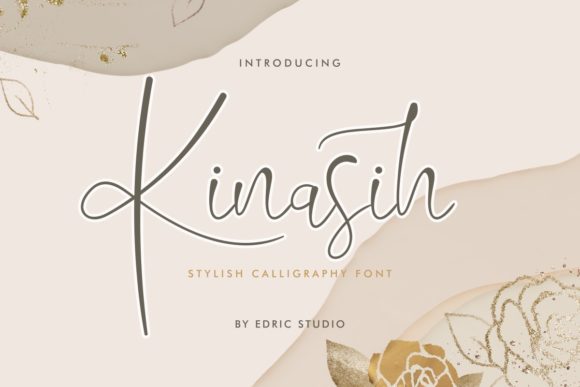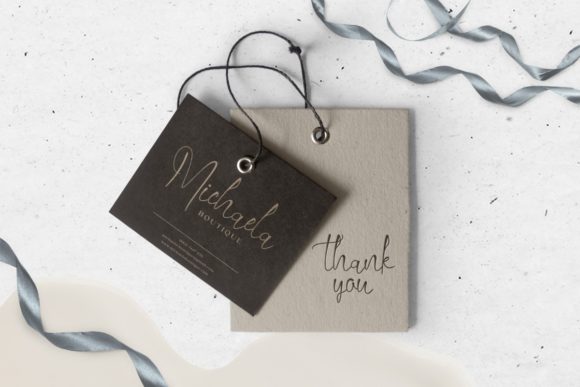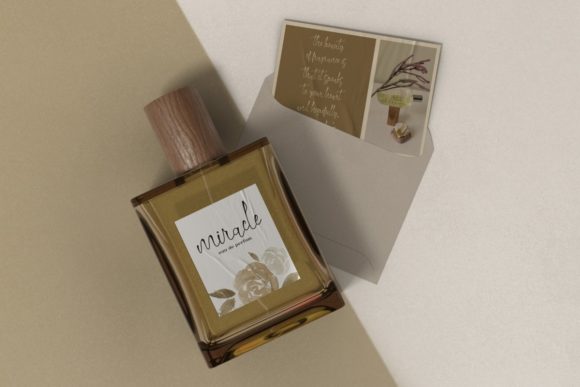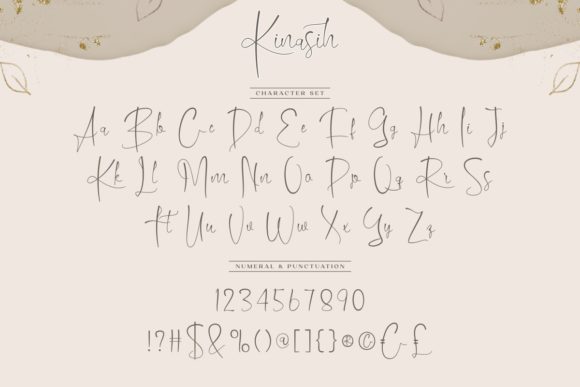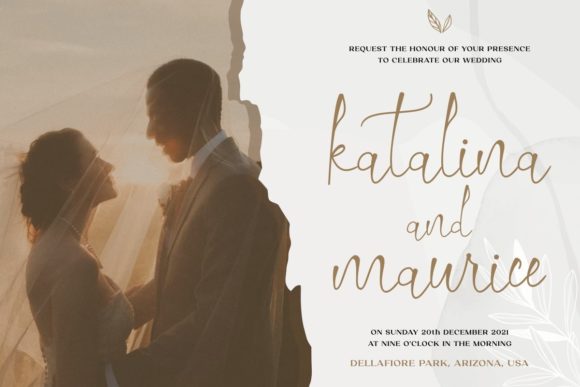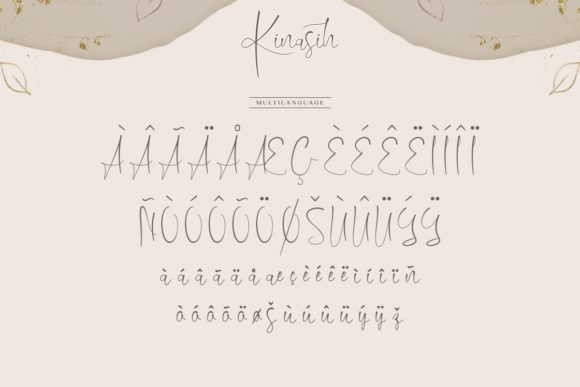
About Kinasih Font
Kinasih is a natural script font perfect for many different projects such as logos & branding, invitation, label, packaging, wedding designs, special events, and many more! Lovely and stylish, this font exudes elegance and class. It was specially crafted for those who need a beautiful and refreshing look to their designs.